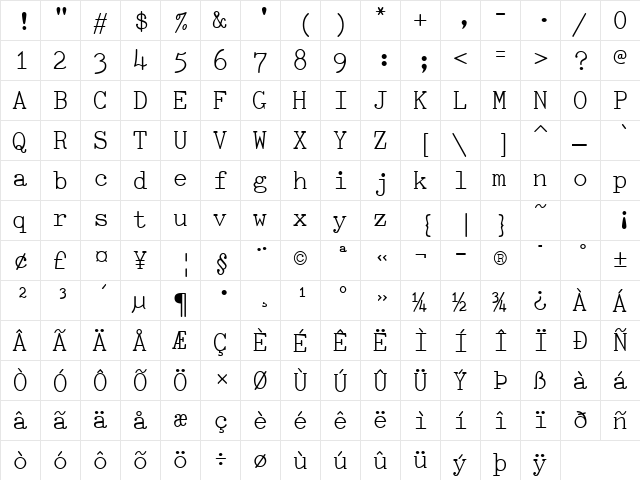
TiredOfCourier Plain
Design Context for TiredOfCourier Typeface
TiredOfCourier brings the precise, column-aligned rhythm of monospaced typography to designs that value technical clarity and systematic order.
Well-suited to data-driven dashboards, coding tutorials, and any design that wants to reference the world of programming.
Pro Tip: Use TiredOfCourier with slightly increased line-height for extended reading — fixed-width spacing can feel dense in longer passages without extra breathing room.